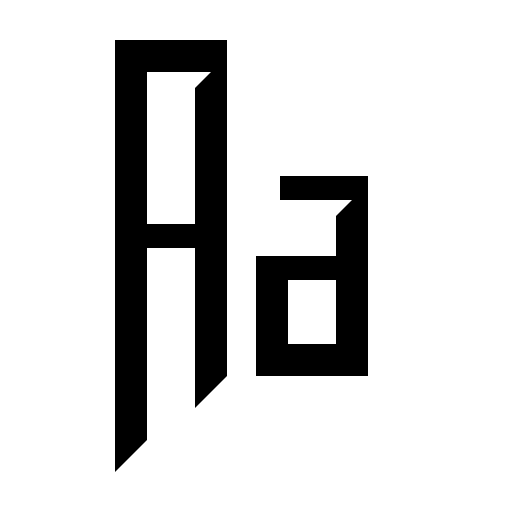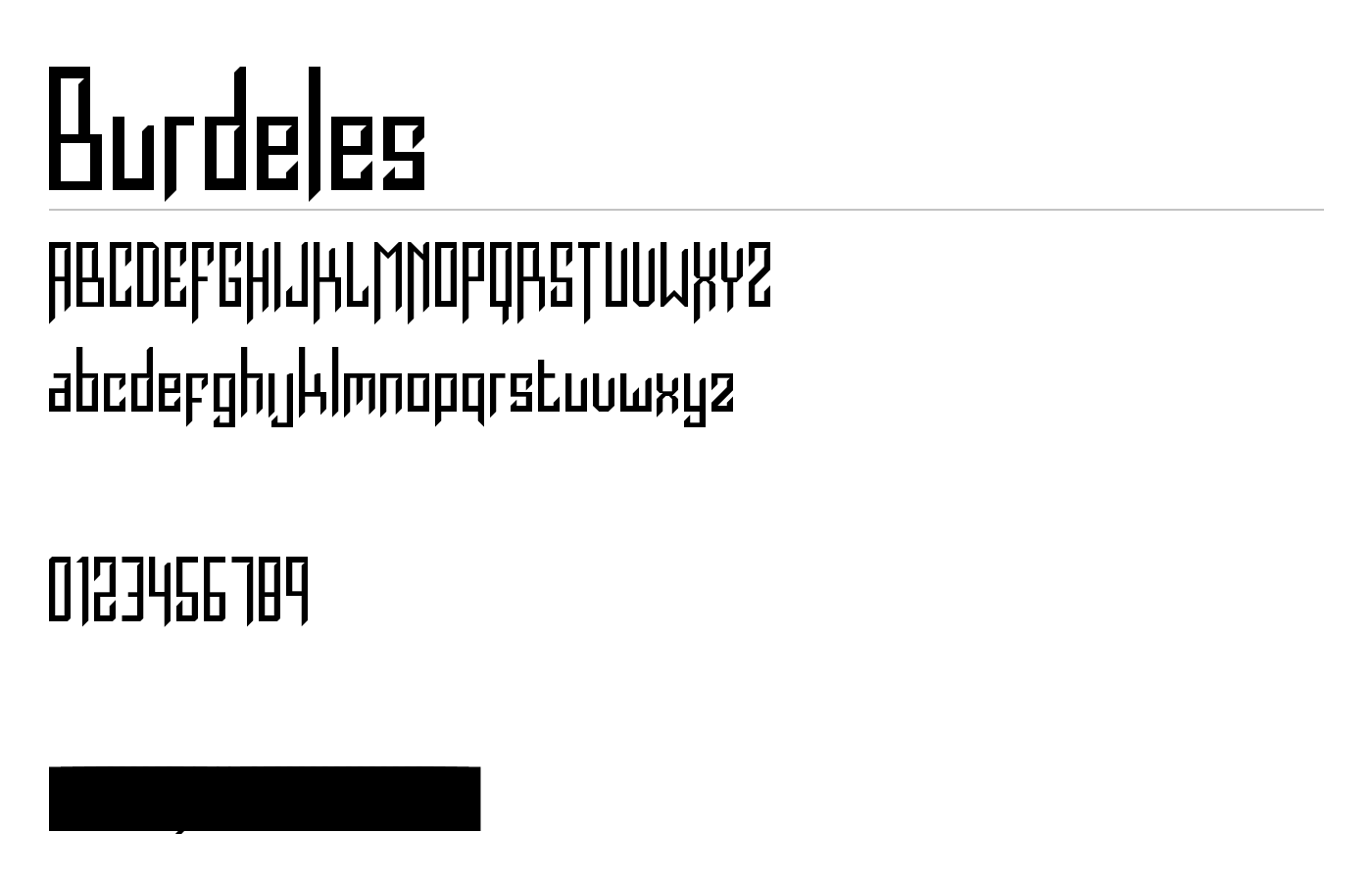
Burdeles is a narrow, geometric sans serif font with sharp, angular strokes that give it a modern, edgy character. Its condensed letterforms and high x-height make it striking and bold, perfect for eye-catching headlines and display use. This font suits brands and projects seeking a futuristic or tech-inspired vibe, especially in logos, posters, and digital media where impact and uniqueness matter.
About Burdeles Font